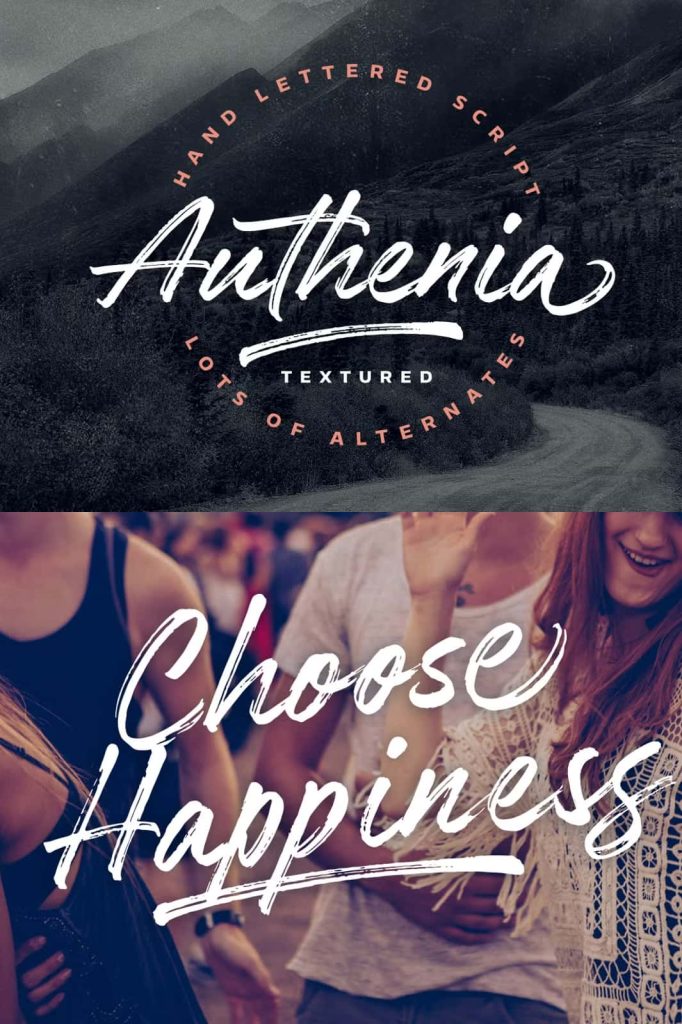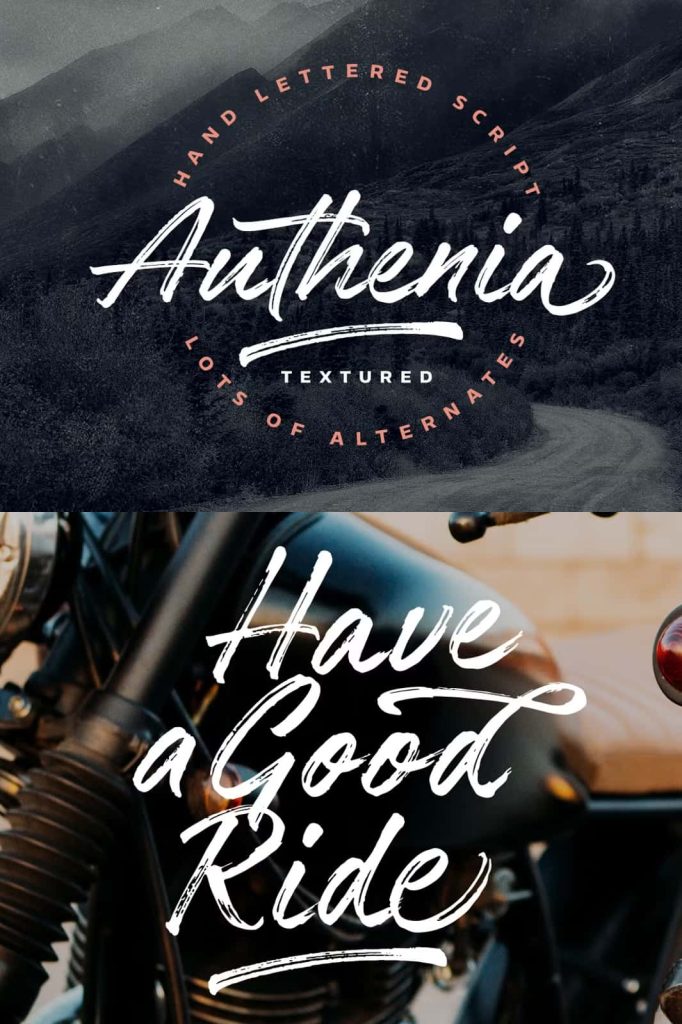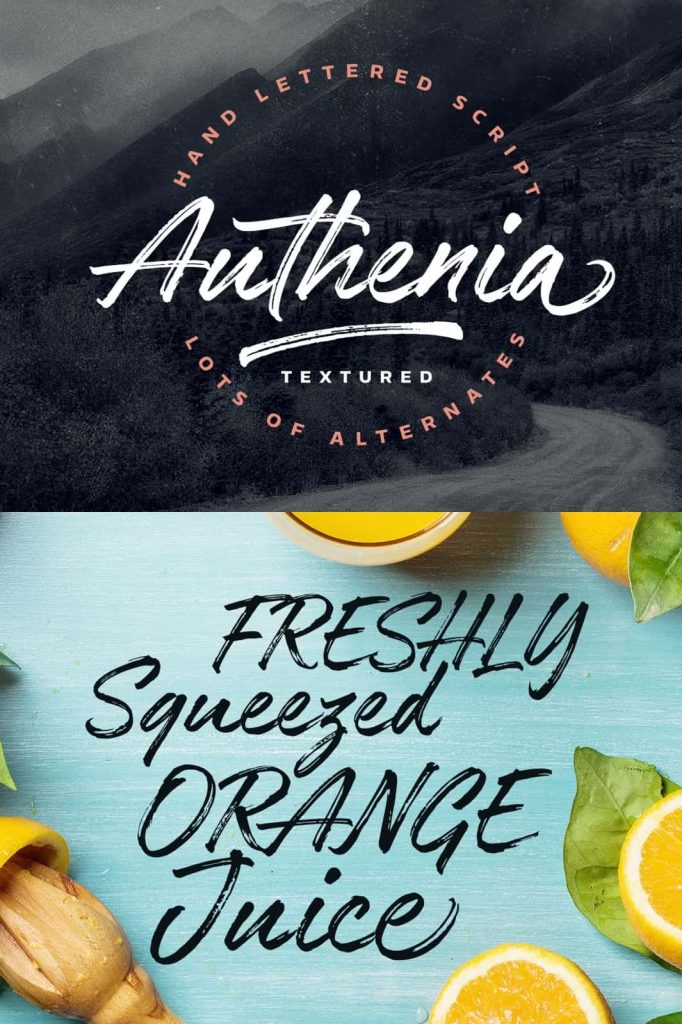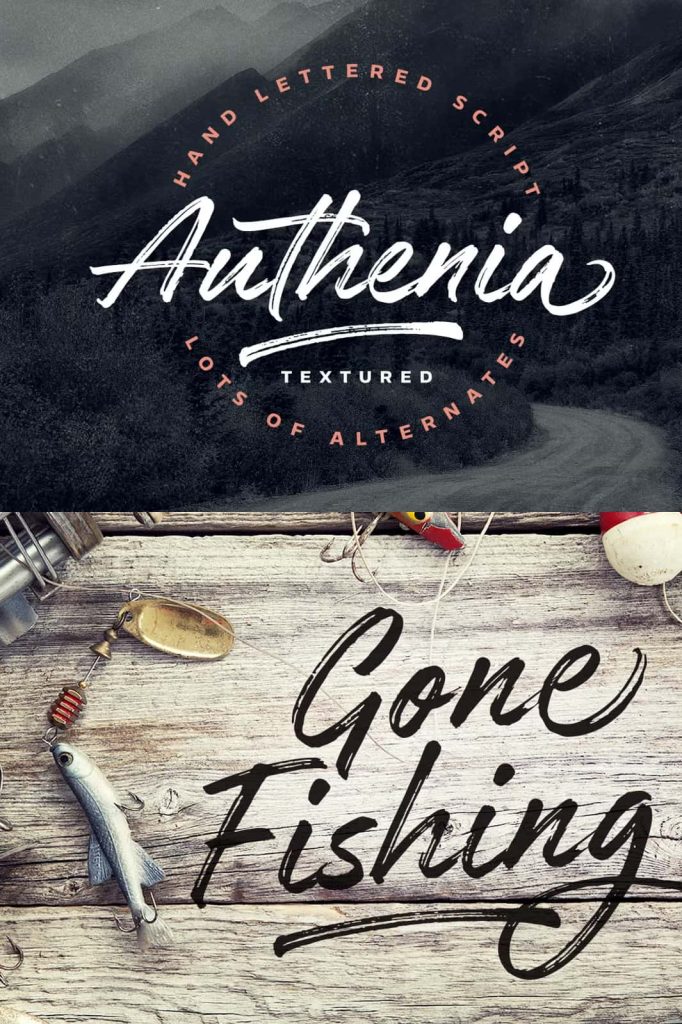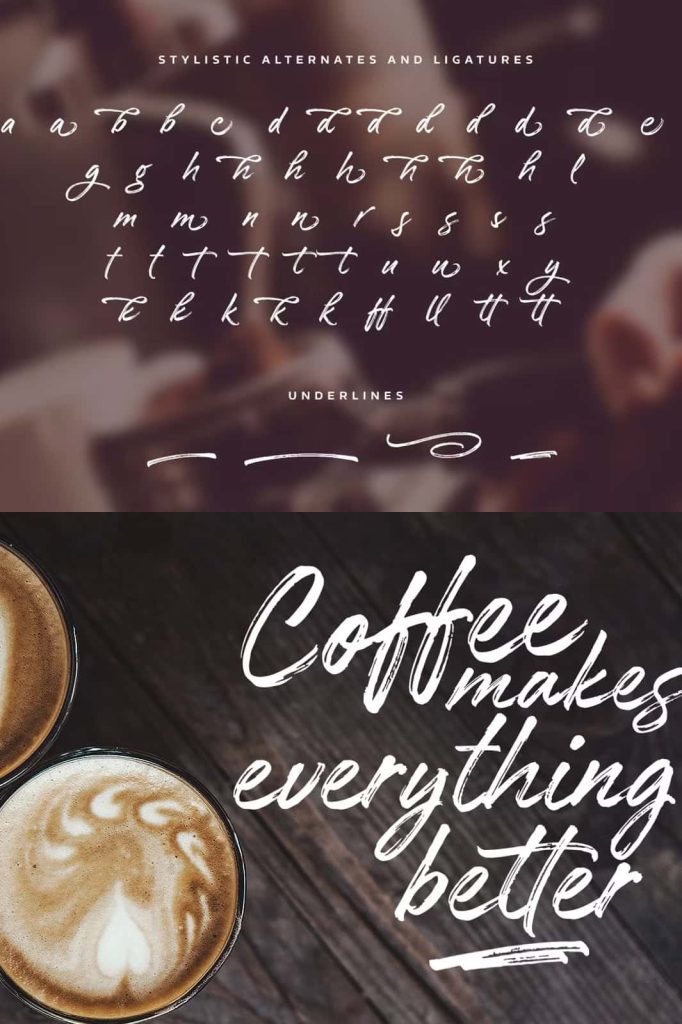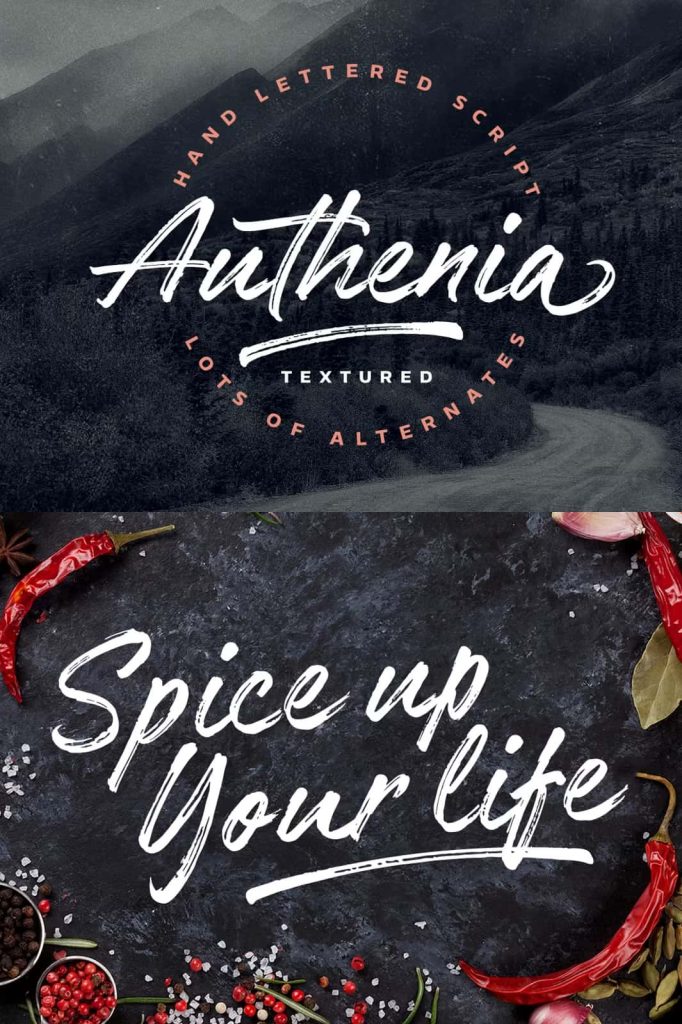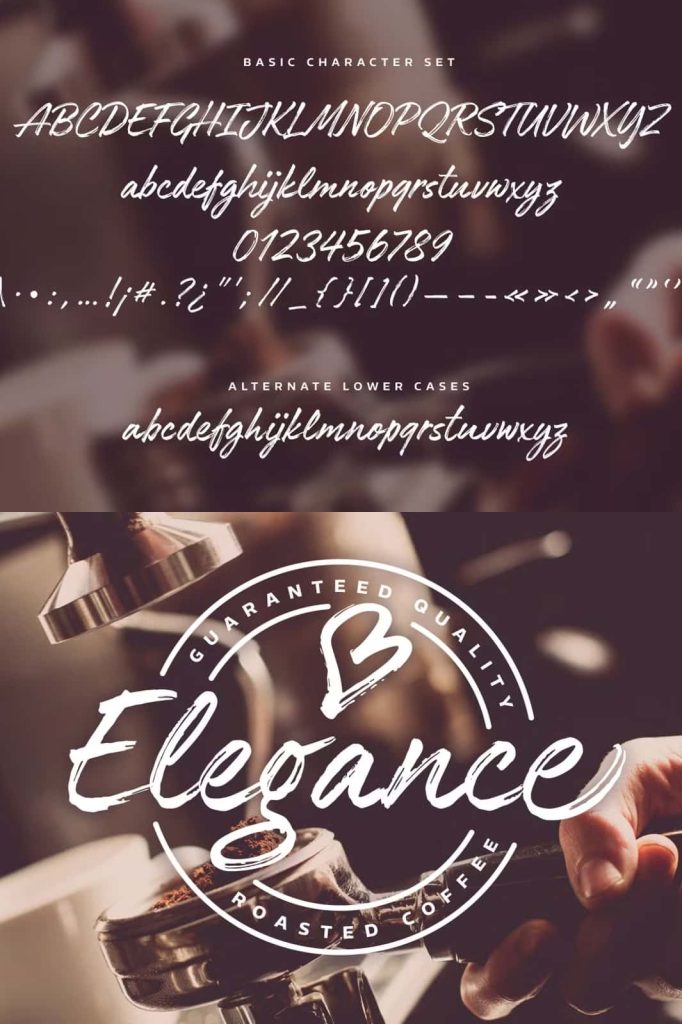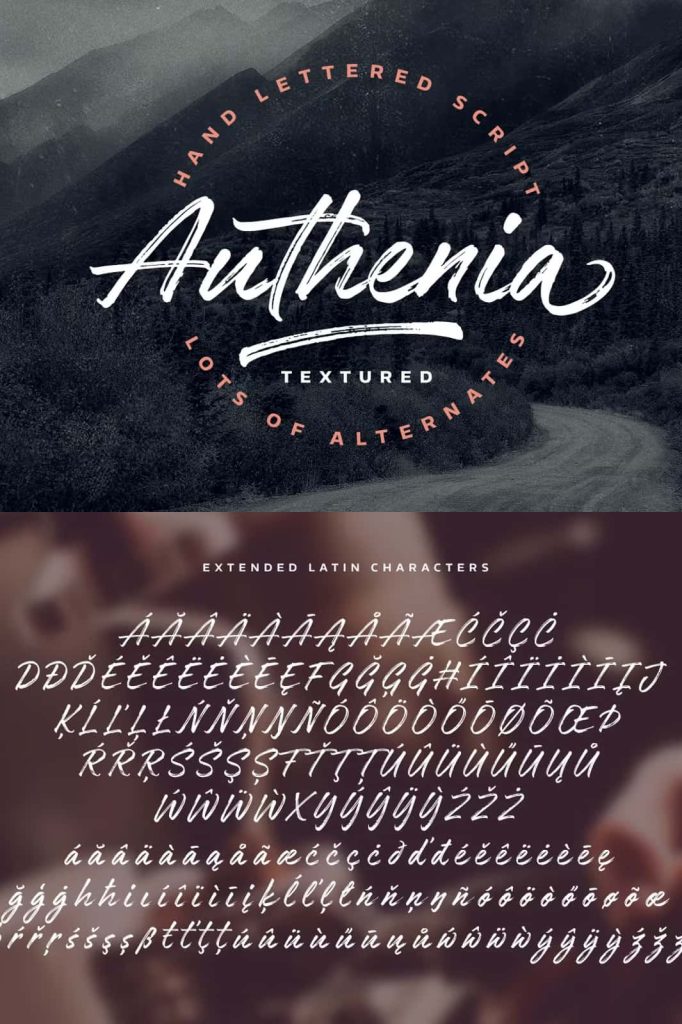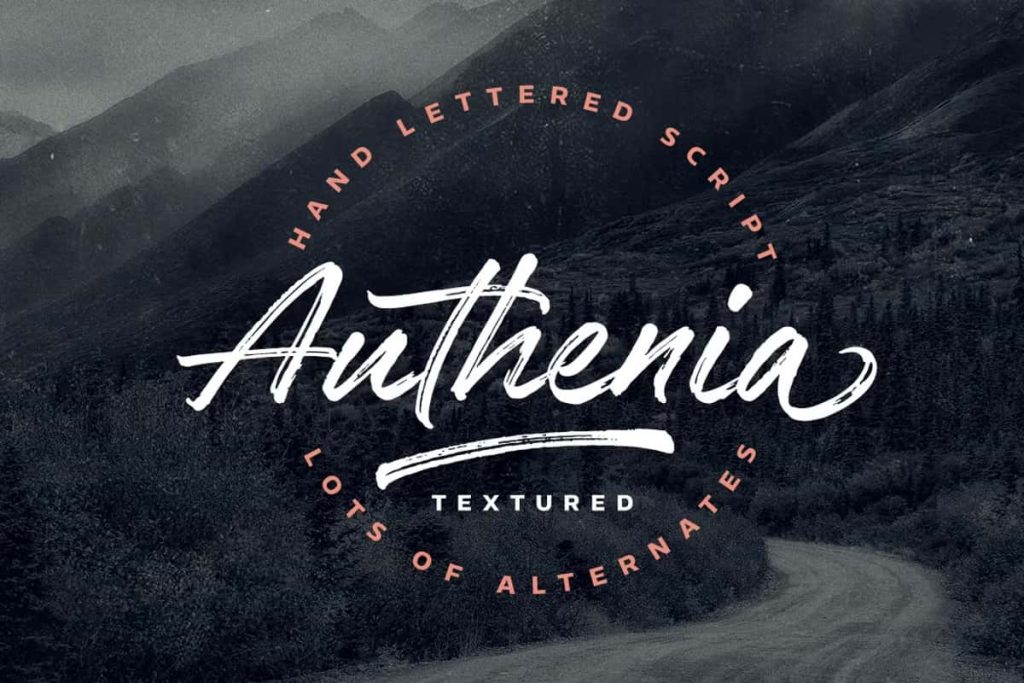
Authenia Textured
Authenia Brush Script Font for Natural and Authentic Designs
Authenia is a beautifully crafted brush script font that captures the essence of real handwriting. Created using a brush pen on paper and then carefully digitized into vector format, this typeface delivers an organic and relaxed appearance that feels genuine and expressive. Its casual flow and natural imperfections make it a perfect choice for designers who want to create work that feels personal, artistic, and full of character.
Handwritten with Real Brush Pen Strokes
Authenia begins with authentic brush pen lettering, drawn by hand to capture the natural rhythm and movement of writing. Each stroke reflects the pressure, speed, and texture of a real brush pen, resulting in a font that feels alive and dynamic. This approach ensures that every letter carries a unique personality, setting it apart from more mechanical digital fonts.
After the initial creation, the lettering is scanned and transformed into a high-quality vector format. This process preserves the organic details while making the font versatile and easy to use across different design platforms.
Organic and Laid-Back Style
Authenia stands out because of its relaxed and effortless style. The slightly irregular shapes and flowing connections create a laid-back aesthetic that feels approachable and warm. This makes the font ideal for projects that aim to communicate authenticity and creativity.
The organic nature of the font also allows it to blend seamlessly with various design elements, from minimalist layouts to more decorative compositions.
Perfect for Branding and Personal Projects
Authenia provides a strong foundation for branding projects that require a human touch. Its natural script style helps you create logos and brand elements that feel personal and memorable. This makes it especially suitable for small businesses, creative entrepreneurs, and lifestyle brands.
You can use this font to develop a visual identity that feels authentic and inviting. Its handwritten quality helps you connect with audiences on a more emotional level.
Ideal for Invitations and Stationery
If you want to design invitations that feel elegant yet relaxed, Authenia delivers excellent results. Its flowing script adds a sense of warmth and intimacy, making it perfect for weddings, events, and special occasions. The font enhances the overall presentation, giving your designs a handcrafted and thoughtful appearance.
You can pair it with simple serif or sans serif fonts to create balanced layouts that combine style and readability.
Enhance Social Media and Digital Content
Authenia works beautifully in digital environments where authenticity is key. Its natural brush strokes add personality to social media graphics, blog headers, and promotional content. The font helps your designs stand out by introducing a human element that resonates with modern audiences.
Use it to create quotes, announcements, and branding visuals that feel genuine and engaging.
Versatile for Creative Applications
Authenia adapts easily to a wide range of creative uses. From packaging and product labels to posters and merchandise, this font maintains its organic charm across different formats. Its flexibility allows you to experiment with colors, textures, and layouts to create unique compositions.
The font also performs well in both print and digital media, ensuring consistent quality regardless of the platform.
Key Features of Authenia Font
• Handwritten brush script created with real pen strokes
• Digitized into vector format for high-quality use
• Organic and laid-back character with natural flow
• Perfect for branding, invitations, and creative projects
• Works seamlessly across print and digital platforms
Create Authentic and Expressive Designs
Authenia brush script font gives you the tools to create designs that feel natural, artistic, and full of personality. Its combination of real handwritten origins and modern digital precision makes it a powerful choice for a wide range of projects.
If you want to add a genuine and relaxed touch to your work, Authenia is the perfect solution. Use it to elevate your branding, enhance your typography, and bring a sense of authenticity into every design you create.